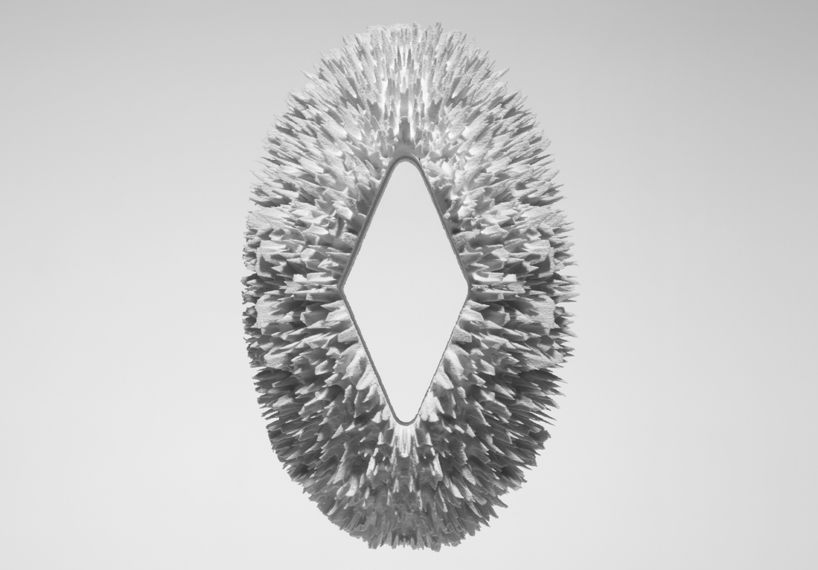
Jelte van Abbema's bacteria typefaceAnyone who has eaten alphabet soup is guilty of building their own typography. Sure, the actual pursuit of arranging types is a lot more complicated than grouping pasta on a spoon but they’re both rooted in the same principle: giving language a form.With the ability to seemingly do anything in our age of invisibility cloaks and bacterium-sized rabbits, it’s only fitting that folks are testing the limits of typeface design by manipulating DNA or getting Google Maps in on the action.To celebrate the creation of typographies that couldn’t have existed even 50 years ago (and to give you something pretty to look at on the occasion of last week's National Spelling Bee) we've compiled 26 experimental and technologically-innovative typographies. Each one represented by its own letter in the alphabet.Letter A: Bacteria
This microscopic manipulation of bacteria landed Dutch designer Jelte van Abbema $14,000 at the Dutch Design Awards. Appropriately called Symbiosis, the lettering was achieved by stamping a congregation of living bacteria with letterpress type and sustained by placing them inside a makeshift incubator.Over time, the bacteria would multiply, change color, and alter the typeface with their own mortality (as seen in the billboard version above).Letter B: Computer Code
If Yeohyun Ahn’s alphabet looks like the frenetic stenciling of a computer on a code high, it’s because it is. Devising lean software for each font type, Ahn is able to construct each letter through a series of mathematical expressions and algorithms.Letter C: TV TypeWith a dot-matrix grid as his remote, designer Jack Archer used a custom shelving unit and 15 TVs to light the letters A through Z.Letter D: Alphabet MapsYou might be thinking: that doesn’t look like the letter “D.” Well, that’s because it isn’t. It’s actually a map of Great Britain and Ireland that shows the geographic density of placenames in the British Isles that start with the letter “D.”Using data publicly available from the NGA GEOnet Names Server, Mukund Unavane charted the geographic propensity for places in Great Britain and Ireland that start with each of the alphabet’s 26 letters and made a map for each one.Letter E: Car-DrawnTalented race pilots have been known to scorch the pavement with figure 8’s but never to aid in the creation of a new typography. Race car pilot Stef van Campenhoudt, then, might be the first of his breed, as he helped typographers Damien Aresta and Pierre Smeetsand artist Zach Lieberman design IQ Font. Check out the stunt driving in action.Letter F: White Blood Cells Neutrophil granulocytes are the most widely dispersed types of white blood cells in your bloodstream and are often the first responders when your body is subject to a bacterial infection.Their nuclei darkens as they’re overcome by disease but not usually in a way that spells out the Roman alphabet. But as Adam S. Morgan and David T. Yang documented, atypical nuclear segmentation in the body of an 80-year-old man suffering from bilateral lobar pneumonia revealed a strange phenomenon: all 26 letters had formed on the nuclei of his blood’s neutrophil as they combated different strains of disease.Letter G: Geo-Positional Running
For those unfamiliar with Figurerunning, it’s pretty much exactly how it sounds. After discovering a familiar shape on a map--let’s say, a dinosaur--you turn on the Figurerunning app, which logs your GPS location with a colored line. As you run across the plotted path, Figurerunning treats you as the pencil to its paper and draws your journey. As pictured above, sketching out typography with your feet is highly encouraged.Letter H: Google MapsWith his hometown of Victoria, Australia as his canvas, Rhett Dashwood scoured Google Maps for instances of accidental lettering as shaped by its countryside.Letter I: Barcode
Only 60 years old, barcode’s ubiquity has robbed it of its magical novelty as it’s become little more than a blotch on the things we buy. But buried within its systematic zebra stripes are unlimited possibilities. For example, the barcode above--though only inches in size--can project the letter “I” to a network of checkout machines as well as any information associated with it. They’re the hieroglyphics of the digital age.Letter J: Animated & Sound GeneratedMemories of grade school might remind you of the countless hours spent learning the sounds associated with letters. Playing mad scientist, Jordan Burnett has added his own version of aural associations to the Roman alphabet.As his experimental video illustrates, Burnett devised a way by which he could create character-specific sounds based solely on the shape of each letter.Letter K: Wet Ink On Wet Paper
Rus Khasanov is something of a typographic genius as five of his creations have made this list. Micro Type, pictured above, is a typeface of microscopic reactions as wet ink is applied to the surface of wet paper. Captured using a macro lens, each letter looks like a miniature super nova contained by the skeleton of lettercasing.Letter L: Photographic Light Capture
Chris Page corralled color-changing lights onto letter-shaped reflective stenciling to achieve the above effect. Once the patterns converge on the letter to the desired effect, Page photographs the image.Letter M: DustThis is Rus Khasanov’s second typographic project of the list. Using magnifying glasses and a swabbing system, Khasanov was able to gather dust to create a typography that looks like chandeliers made out of bubbles.Letter N: High-Speed Photography & Milk
Sequences is a real-time art fest that takes place annually in Reykjavík, Iceland. A team headed by designer Jónas Valtýsson hinted at the festival’s real-time focus by creating a typeface made of falling streams of milk, which were captured with high-speed photography.Letter O: Three-Dimensional History
Two very big 3-dimensional thumbs up to this idea. To commemorate the history of particular typefaces, design studio johnson banks 3D-printed letters whose forms illustrate the origin and character of each.The “O”, for example, pays homage to OCR-A font, which was developed as a multi-purpose font that could be read with ease by humans and computers alike. It’s jagged, otherworldly design is exemplified by the spiked cityscape of the printed sculpture.Letter P: Pixel DistortionThere’s no stopping Rus Khasanov. In another typography experiment, Khasanov gives the paper-smooth surfaces of computer screens a neon-encrusted bubbliness by dabbing liquids on them.Letter Q: iPod Touch Pixel Painting
Classmates Cameron Zotter and Jinhwan Kim used an iPod Touch to project a moving image of letters from the alphabet. As each letter skirted across the screen, a long exposure photograph captured the span of the movement. The end result are letters that look as they’ve been sliced by blades of shadow.Letter R: Analog & Digital MeshIsabel Seiffert achieved the retro-future look of her typography by playing with alternating layers of analog and digital textures.Letter S: Biotypography
Oded Ezer might be typography’s most dedicated and off-kilter personality. Apart from developing typosperma, which is a hypothetical creature that is half-human sperm, half-letter (as seen above), Ezer has looked into a world where typoplastic surgeries, leech letters, and animals in the shape of letters or words might be commonplace.Letter T: Repurposed Dismantled SignsRather than see old fascia signs end up in the dump, Finland-based Character use the most striking letters as repurposed home accessories. They replace the neon tubing with LEDs, give it a power source and chord, and ship it wherever your typographic-loving heart desires.Letter U: MultisensoryEducation needs a redesign. Despite the common knowledge that not all children learn in the same manner, most schools follow phonemic or strictly visual teaching practices. In an effort to curb the age-old ineffectiveness of education’s shortcomings, designer Alan Murphy has come up with a multisensory typography. Made out of plasticine, children and teachers would use Murphy’s multisensory kit to learn about the alphabet through touch, sight, and sound as they mold their own letters.Letter V: DNA